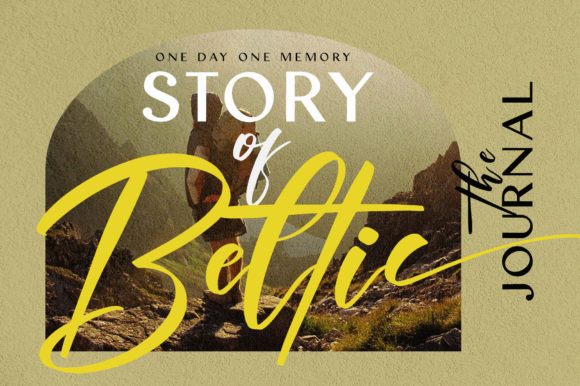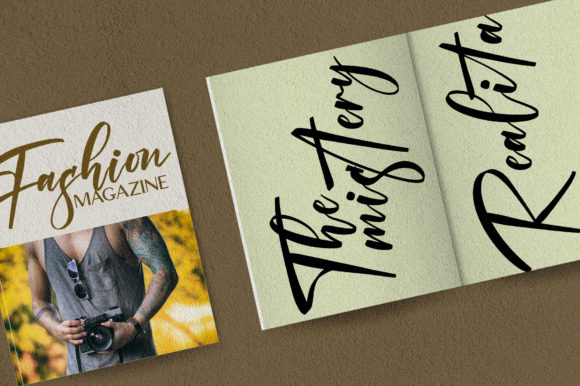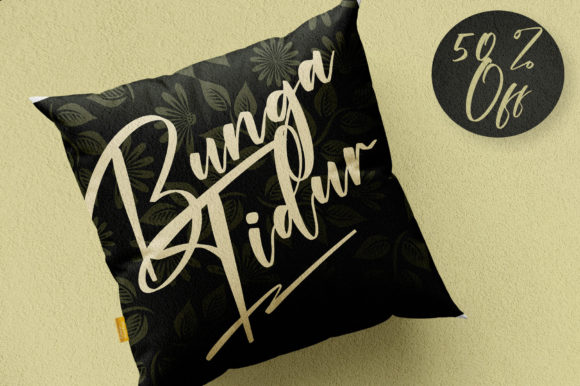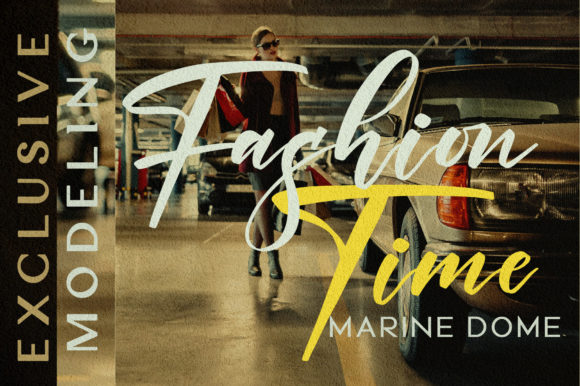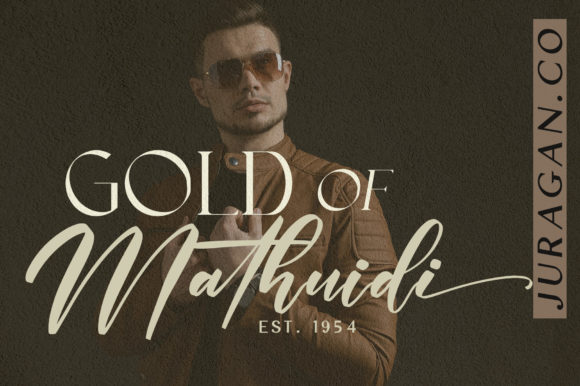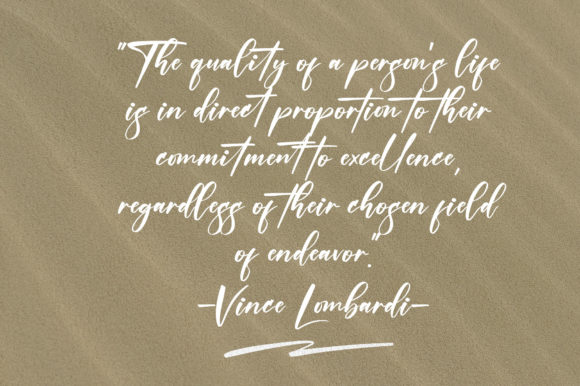
Introduction to Listhon Font
As designers, we’ve all been there – staring at a blank canvas, searching for the perfect font to bring our creative project to life. The moment of truth arrives when you finally stumble upon that elusive, yet perfect, font that sets your design apart from the rest. For those seeking a timeless and elegant handwritten font, look no further than the Listhon Font.
With its lovely and whimsical touch, Listhon Font is a design resource that will undoubtedly elevate your creative project. Whether you’re crafting an eye-catching logo, branding, or quote, this high-quality font is sure to impress. What’s more, it’s PUA encoded, making it easy to access all the glyphs and swashes you need for a seamless design experience.
Key Features of Listhon Font
- Designed with a unique, modern aesthetic, making it perfect for contemporary design projects.
Honest Review: Listhon Font
I recently stumbled upon the Listhon Font while searching for a free design resource for a creative project. I was impressed by its clean and modern aesthetic, making it perfect for a variety of uses.
- High-quality typography with clear lines and precise shapes.
- Translucent background option for flexibility in design.
The Listhon Font is versatile and works well in a range of applications, from digital displays to print materials. Its modern design makes it an excellent choice for designers seeking a contemporary look.
- May not be suitable for very formal or traditional projects.
- Some users may find the font too minimalist for certain designs.
Overall, I’m impressed with the Listhon Font and its potential for creative projects. Its high-quality design and free download option make it a valuable resource for designers.
Listhon Font
Design Resource Guide
The Listhon Font is a versatile and high-quality design resource perfect for creative projects. It can be downloaded for free and comes with a transparent background, making it ideal for use in various graphic design applications.
The Listhon Font is ideal for use in various design projects, including:
- Branding